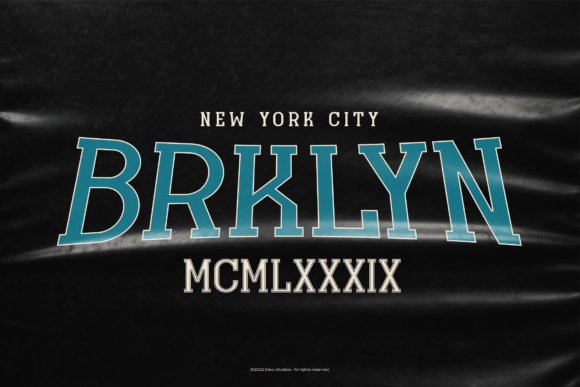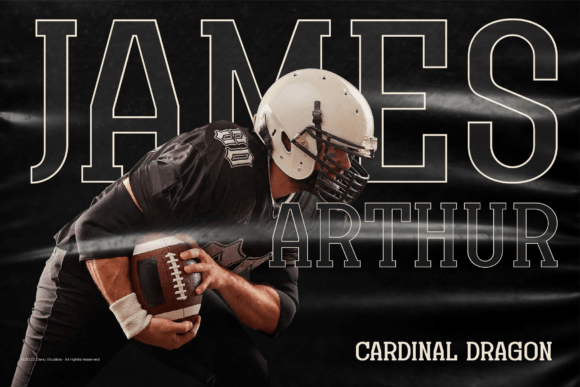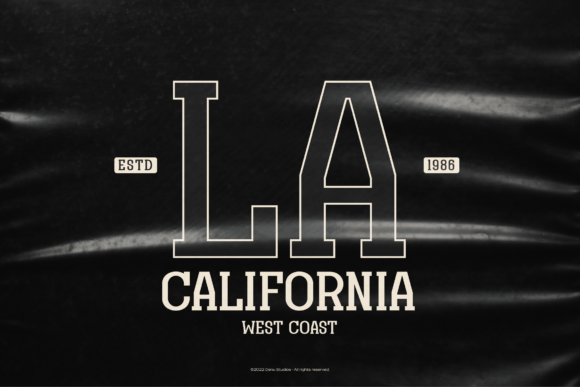
Introduction to Original Regional Font
Remember the moment when you’re brainstorming ideas for a new project, and the perfect font pops into your mind? That’s exactly what happened when we stumbled upon the Original Regional Font. This classic slab serif font has been a hidden gem in the design world, waiting to elevate your creative projects to the next level.
Whether you’re working on logos, branding projects, or product packaging, the Original Regional Font is the perfect companion to bring your vision to life. Its high-quality design and versatility make it an invaluable resource for designers, allowing them to create stunning visuals with ease. Plus, with its transparent background option, you can easily integrate it into your designs without any hassle.
In this article, we’ll dive into the world of the Original Regional Font, exploring its features, benefits, and why it’s a must-have in your design arsenal.
Key Features of Original Regional Font
- High-quality, handcrafted design for a unique touch in creative projects
- Unique characteristics inspired by regional cultures, adding a touch of authenticity to any creative project
Honest Review: Original Regional Font
I’ve been using the Original Regional Font in a few of my creative projects, and I have to say it’s been a game-changer. The font’s unique blend of traditional and modern elements gives it a high quality feel that’s perfect for anything from branding to editorial design.
Here are some of the things that work well with the Original Regional Font:
- Unique character set with a range of weights and styles
- Highly legible even at small font sizes
- Perfect for creating a sense of place or cultural identity in a design
My only major criticism is that the font can be a bit inconsistent in terms of spacing and kerning. This can be a challenge for designers who are used to working with more precise typography.
Overall, I think the Original Regional Font is a great choice for designers who are looking for a high quality, versatile font that can add a touch of personality to their creative projects. Just be aware of the potential for some inconsistencies in terms of spacing and kerning.
The Original Regional Font is perfect for a variety of projects, including business cards, brochures, and social media graphics. Its unique design and high quality make it a valuable resource for any creative project.